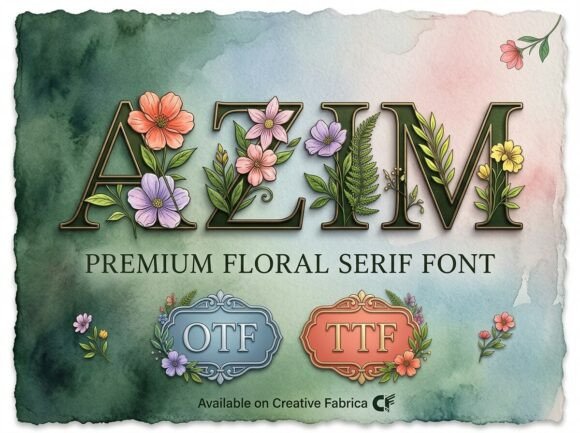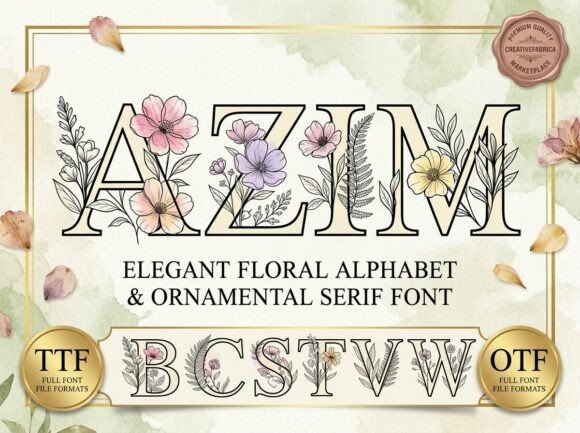
Introducing Azim: The Botanical Serif Font that Elevates Elegance and Nature
In the world of typography, few fonts manage to strike a balance between elegance and nature. Azim, a beautiful botanical serif font, achieves this perfect union, offering a unique blend of sophistication and organic charm. With its clean, high-contrast silhouette and delicate line-art flowers and ferns, Azim is the ideal choice for designers and crafters looking to add a touch of refinement to their projects.
The Design Philosophy Behind Azim
Azim’s design is rooted in the idea of merging traditional serif typography with the organic beauty of botanical elements. The result is a font that exudes elegance and sophistication while also evoking the natural world. The high-contrast silhouette provides a clean and crisp look, while the delicate line-art flowers and ferns add a touch of whimsy and playfulness.
One of the standout features of Azim is its versatility. This font is designed to be used in a variety of applications, from personalized monograms and organic skincare packaging to sophisticated wedding invitations and more. Whether you’re looking to create a luxurious brand identity or a beautiful wedding stationery set, Azim provides the perfect foundation for your design.
Perfect for Botanical and Nature-Inspired Designs
Azim’s botanical elements make it an ideal choice for designers and crafters working on nature-inspired projects. The font’s delicate flowers and ferns add a touch of organic charm to any design, making it perfect for projects that require a natural and effortless look. From garden party invitations to botanical prints, Azim helps to create a curated botanical garden experience.
Key Features of Azim
- Clean and High-Contrast Silhouette: Provides a crisp and elegant look
- Delicate Line-Art Flowers and Ferns: Adds a touch of organic charm and whimsy
- Maximum Versatility: Suitable for a wide range of applications, from monograms to wedding invitations
- Refined and Sophisticated Aesthetic: Perfect for luxury brands, wedding stationery, and high-end packaging
Using Azim in Your Designs
Azim is easy to use and can be incorporated into a variety of design projects. Here are a few ideas to get you started:
- Personalized Monograms: Use Azim to create beautiful, one-of-a-kind monograms for weddings, baby announcements, or personalized gifts
- Organic Skincare Packaging: Add a touch of elegance and sophistication to your skincare packaging with Azim’s refined botanical serif font
- Wedding Invitations: Create stunning wedding invitations with Azim’s delicate flowers and ferns, setting the tone for a beautiful and memorable wedding celebration
Azim, the botanical serif font, offers a unique blend of elegance and nature that is sure to elevate your designs. With its clean, high-contrast silhouette and delicate line-art flowers and ferns, Azim provides a refined and sophisticated aesthetic perfect for a wide range of applications. Whether you’re a designer, crafter, or simply someone who appreciates beautiful typography, Azim is an excellent choice for anyone looking to add a touch of organic charm to their projects.
Get Ready to Experience the Perfect Union of Elegance and Nature
Discover the beauty of Azim and experience the perfect union of elegance and nature. With its versatility, refined aesthetic, and organic charm, Azim is sure to become a go-to font for designers and crafters looking to create stunning and sophisticated designs.